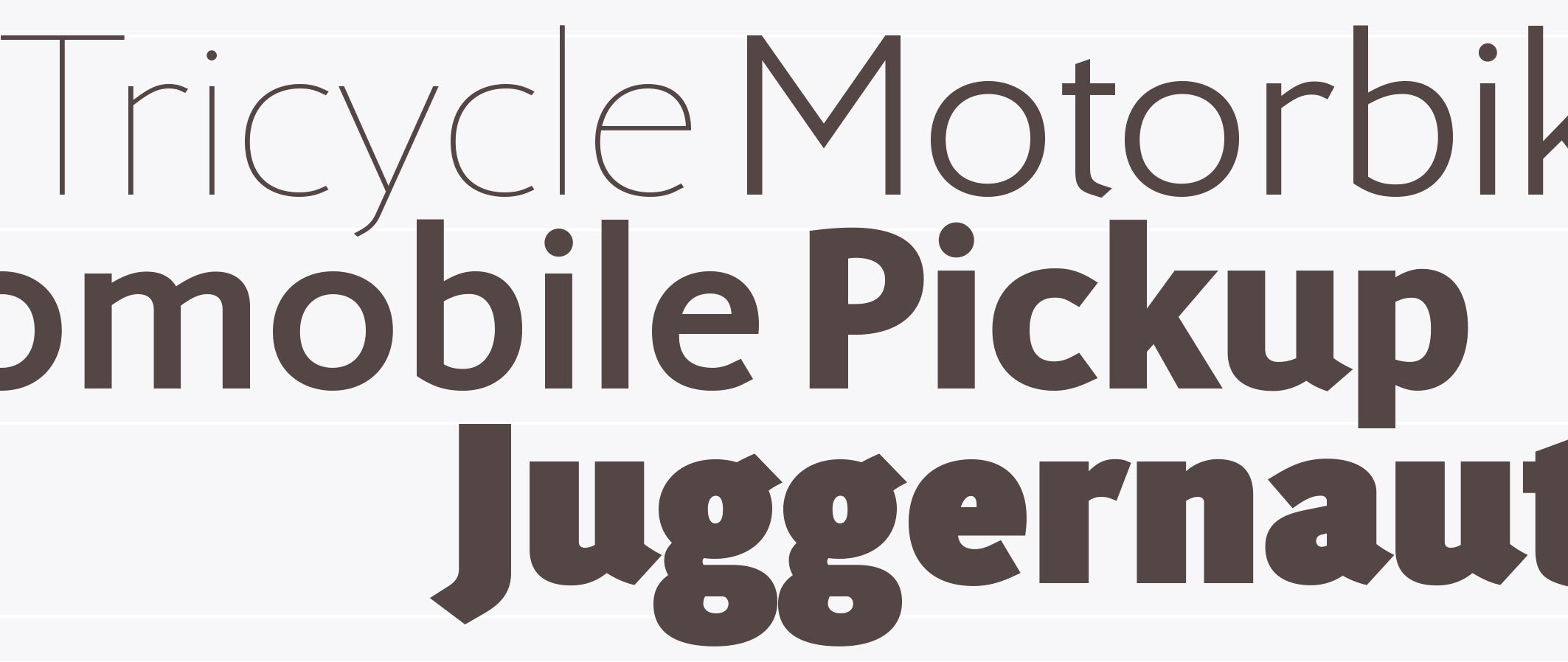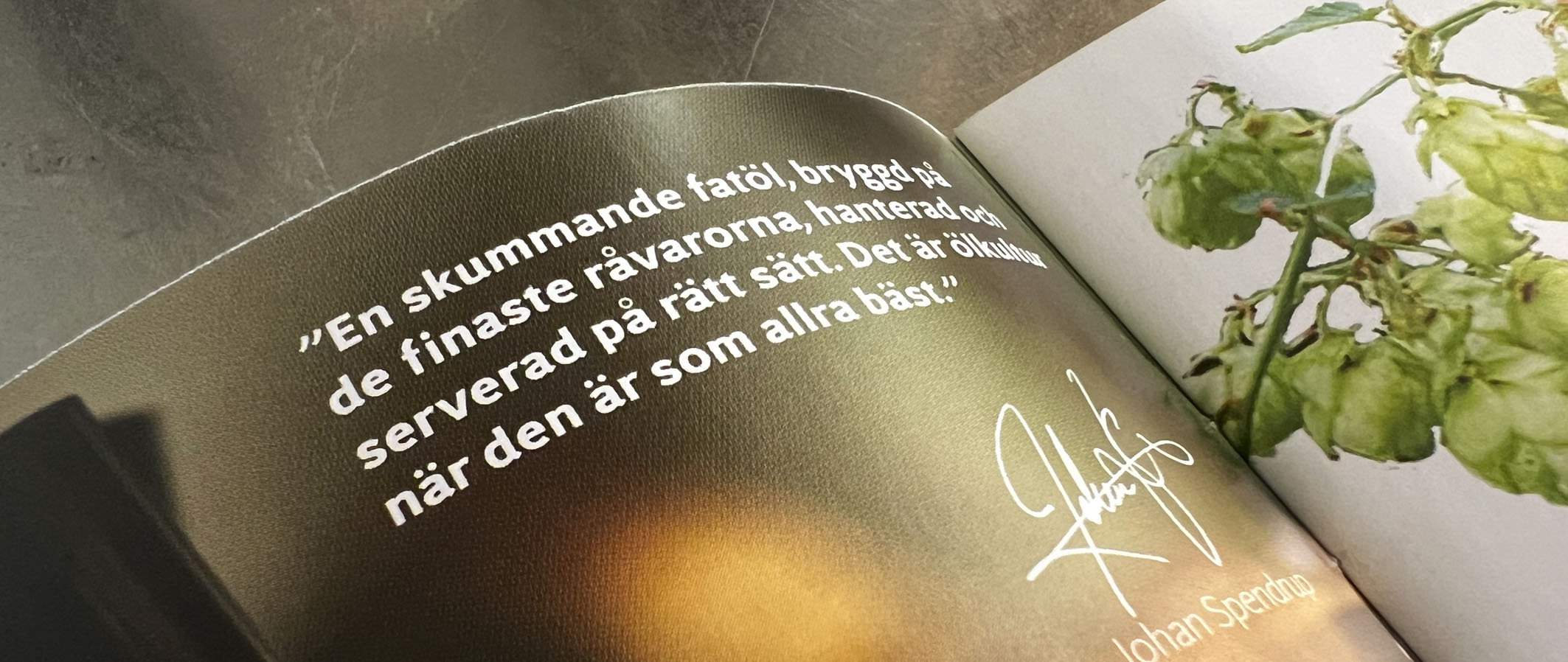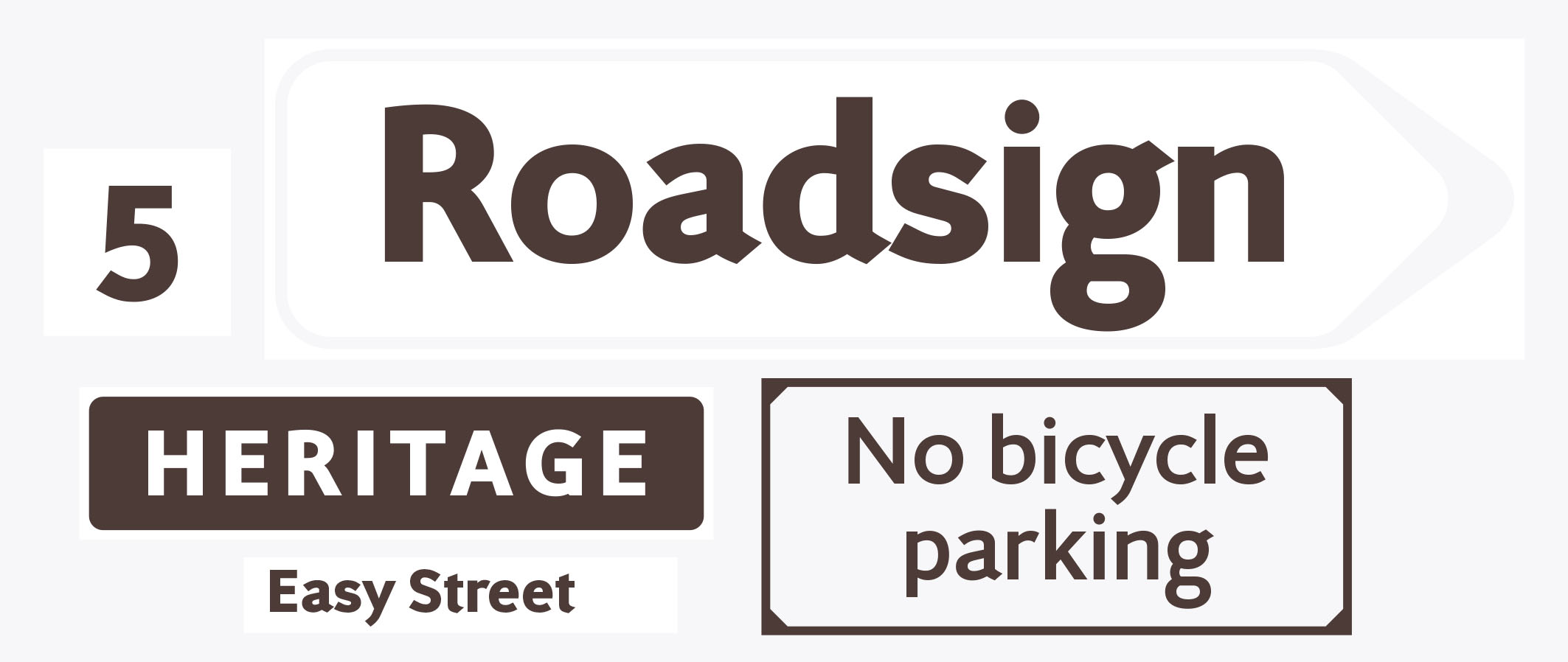
Rosemary Samuels II
The inspiration for Rosemary came during a road trip in Scotland, where road signs used letterforms with a similar sturdiness.
Compared to the original, Rosemary Samuels II has a slightly altered weight scope and extended language support.